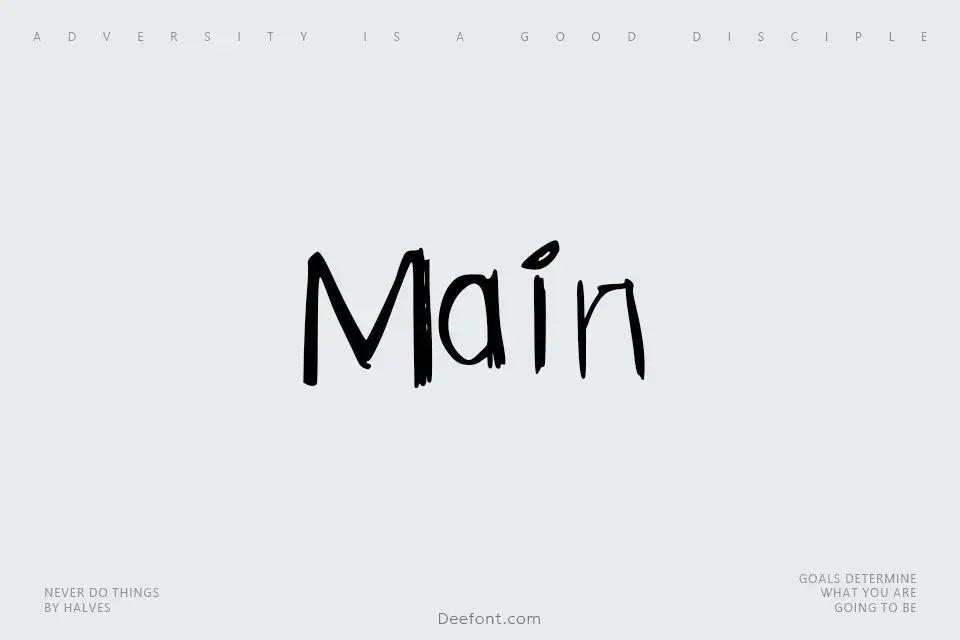
Main Font
Main is a distinctive script typeface that brings a modern, playful energy to design projects. With smooth, flowing letterforms and casual cursive characteristics, this font excels in creating engaging titles, poster designs, and decorative typography. The 66 glyph set provides solid coverage for basic English text, making it ideal for display applications where a relaxed yet contemporary aesthetic is desired. Perfect for social media graphics, headline designs, greeting cards, and creative branding projects that need personality and visual impact.